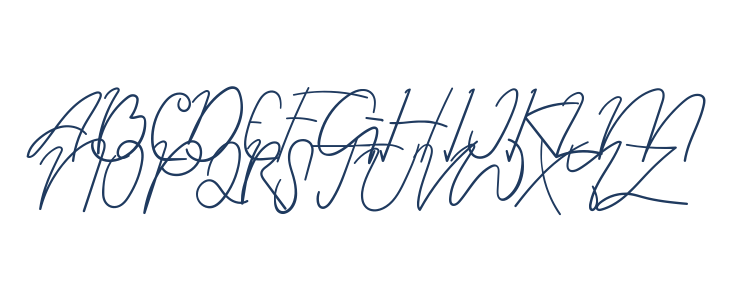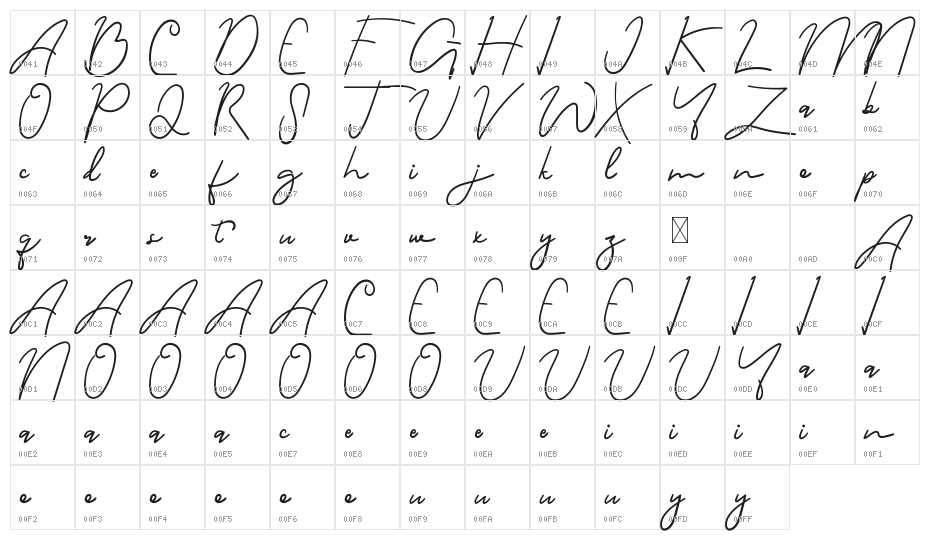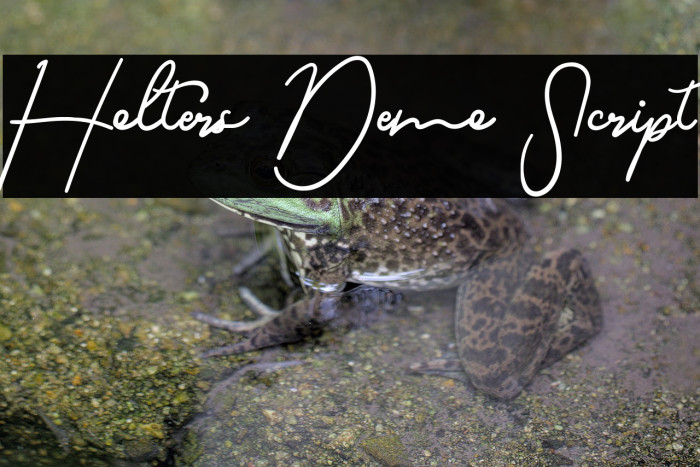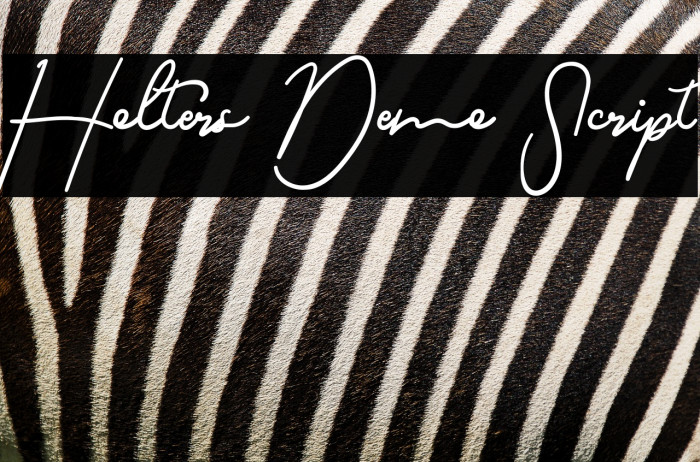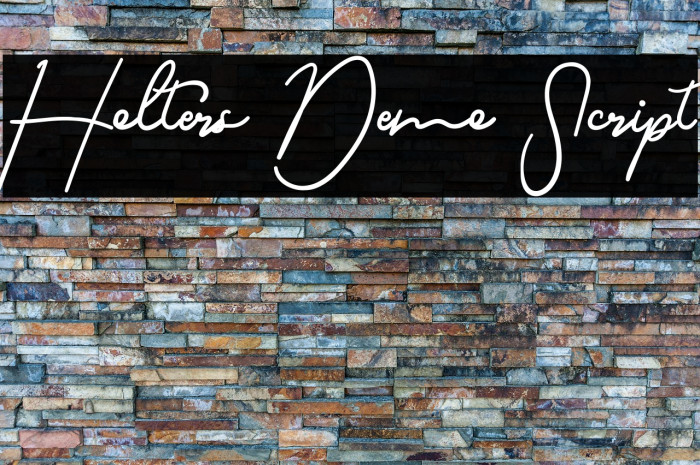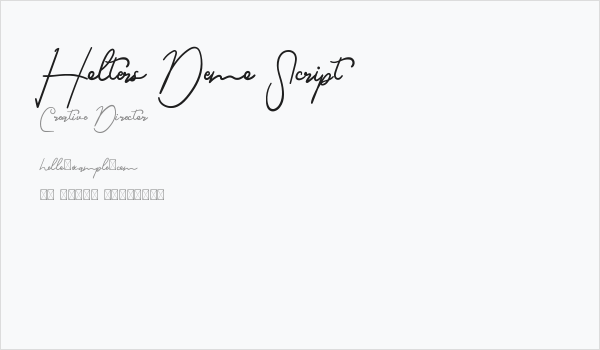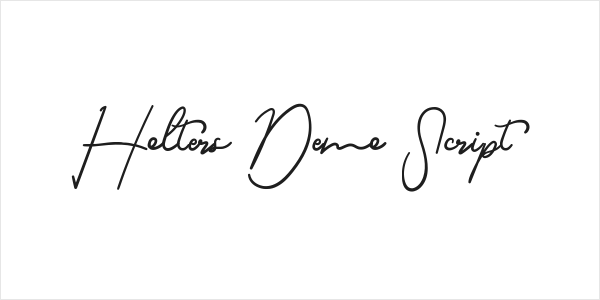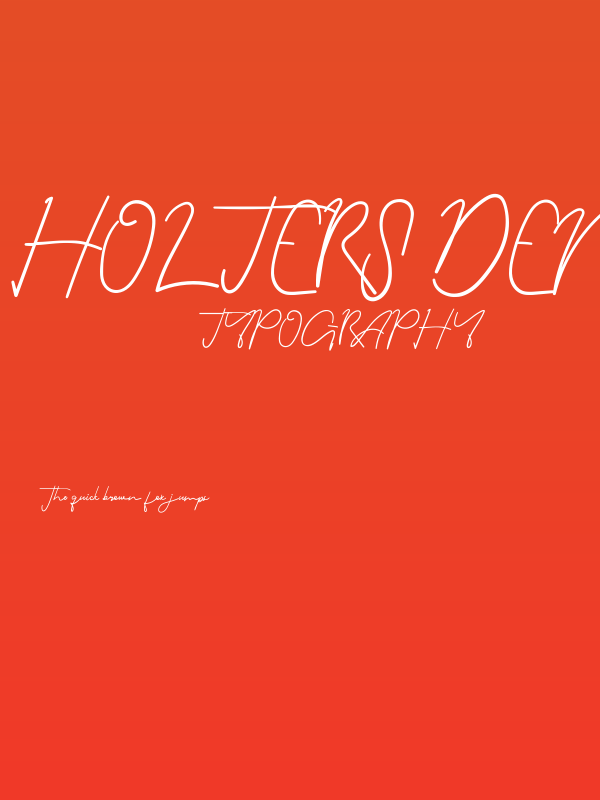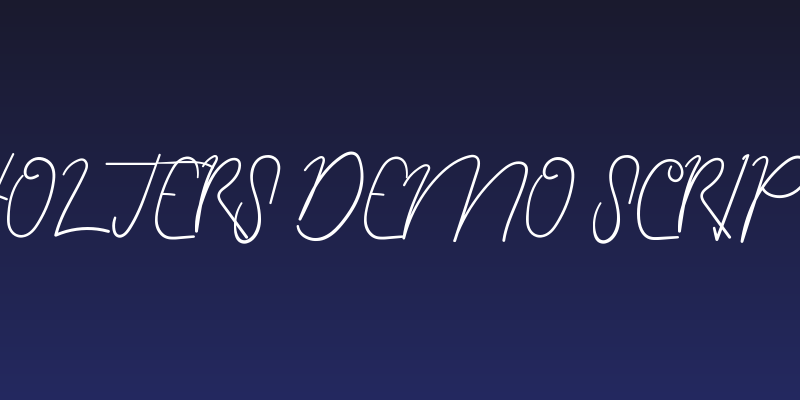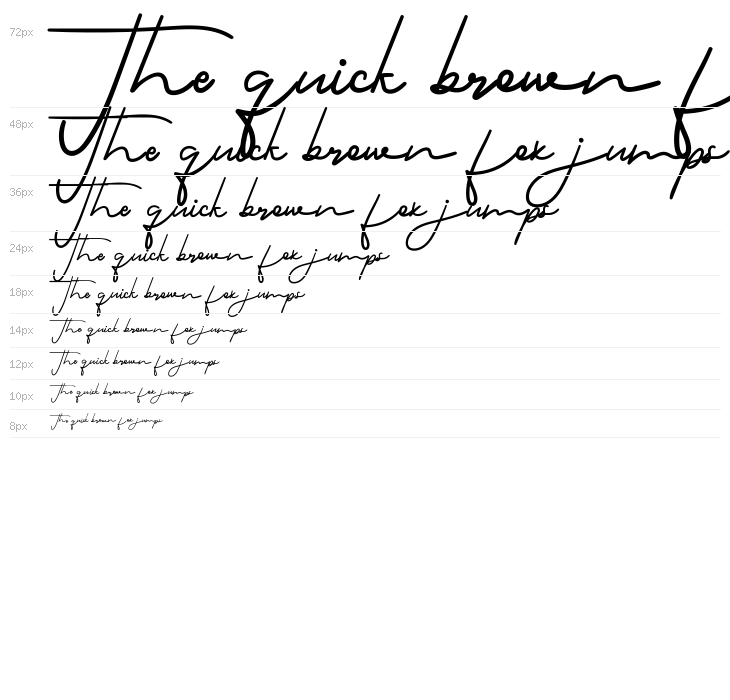
Holters Demo Script Font
Holters Demo Script Description
A highly stylized, cursive script font with a handwritten appearance, featuring fluid, connected strokes and varying line thickness. The uppercase and lowercase letters are expressive and dynamic, with some exaggerated ascenders and descenders, and a natural, organic flow.
Fonts by Calligraphy Fonts
| Overall Style | Decorative, Handwritten, Artistic |
| Use Case | Logos, Invitations, Artistic headlines, Personal notes |
| Proposed Projects | Invitations, personal branding, greeting cards, artistic posters, signatures, creative projects. |